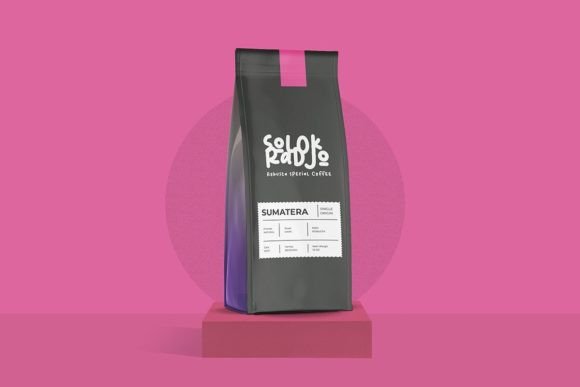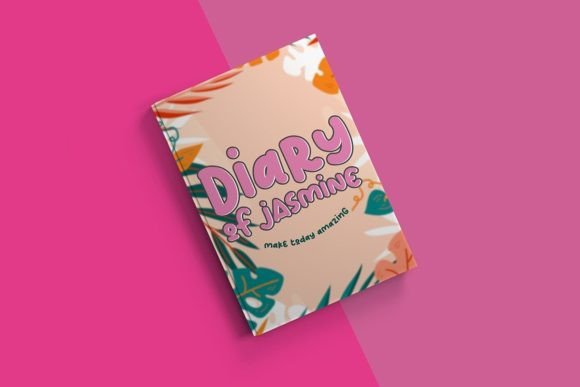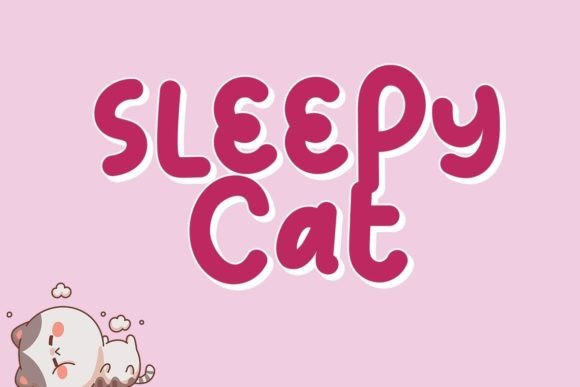
Cuties Kitty Font: A Whimsical Display Font for Cute Designs!
About the Cuties Kitty Font
From logos to headlines, the Cuties Kitty Font is the perfect choice for making a lasting impression. Cuties Kitty is a Chubby Display Font, it’s a fun and whimsical style. This font is perfect for children-themed designs, especially when combined with bright colors.
Cuties Kitty’s playful design shines in headlines, logos for children’s products, and short, impactful phrases on packaging or posters. It’s less suitable for body text or UI elements due to its chunky weight and whimsical nature; readability suffers in longer passages.
Consider pairing Cuties Kitty with a clean sans-serif like Open Sans for a balanced contrast, or a more playful script font such as Pacifico for a consistent whimsical feel. For a more sophisticated touch, a thin, elegant serif such as Lora can add visual weight and counter the font’s rounded forms.
Its core personality is undeniably fun and friendly, making it ideal for brands targeting young audiences or conveying a lighthearted message. Avoid using it where a serious or professional tone is required.
Cuties Kitty Font Usage Examples
Cuties Kitty Font Example